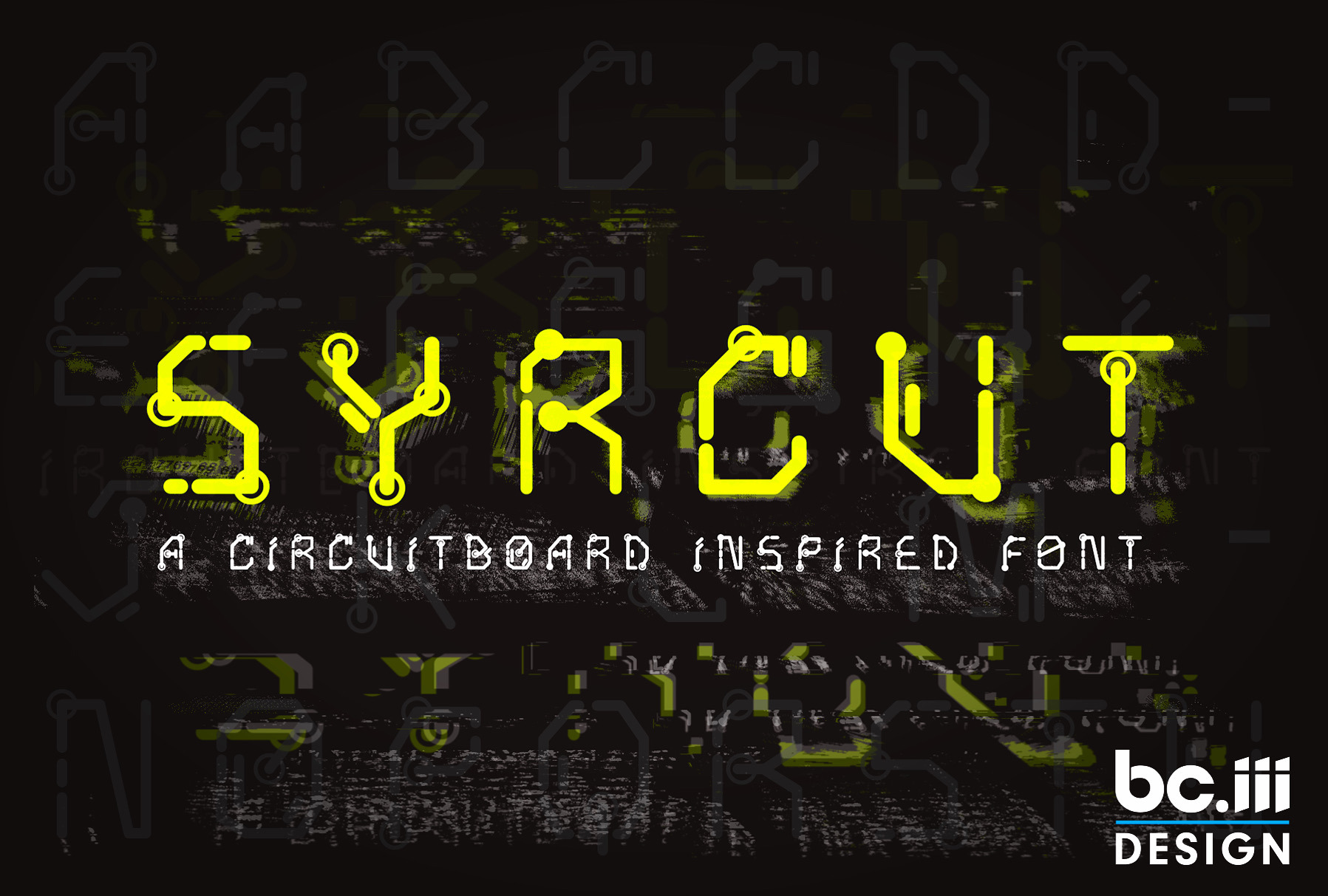
Syrcut Font
A Display / Futuristic / Tech / Scifi / Video Game looking font with a circuitboard theme. It has alternates for each letter of using either open or closed circles within the letterforms as well as some additional alt-characters.